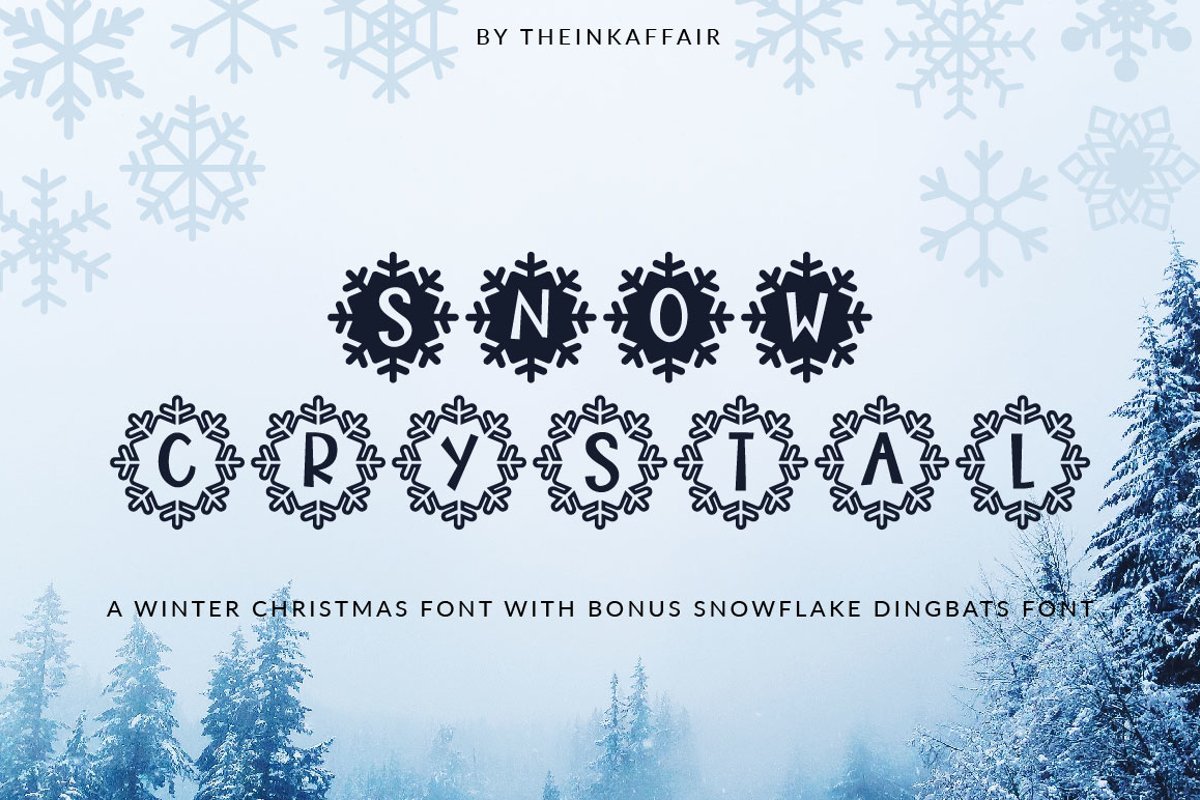
Snow Crystal is a fun, winter christmas font perfect for holiday and christmas greetings, invites, quotes, etc.
This font also comes with a bonus snowflakes dingbat font with 26 different snowflakes that you can use in your designs.